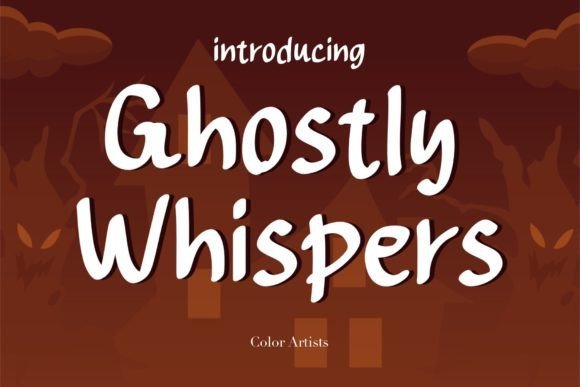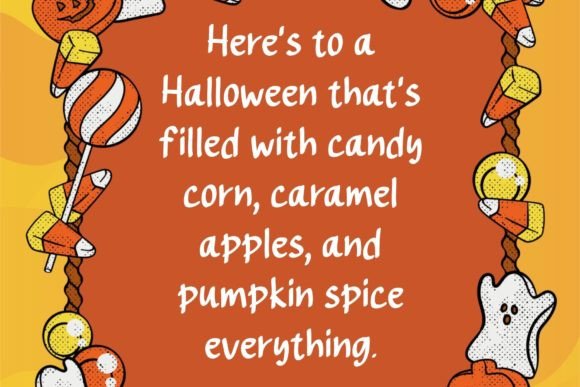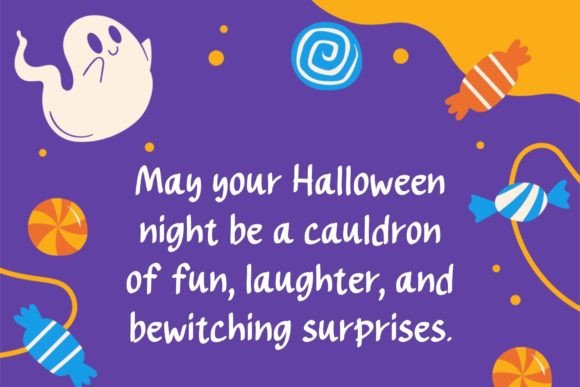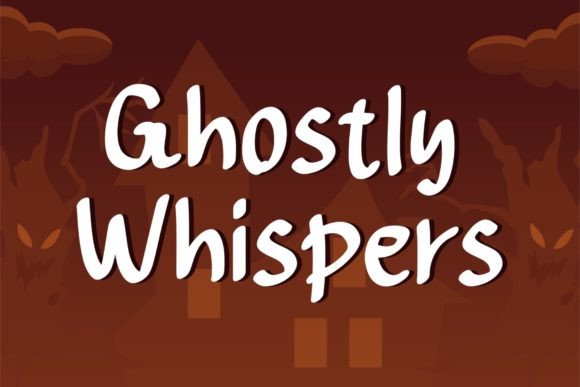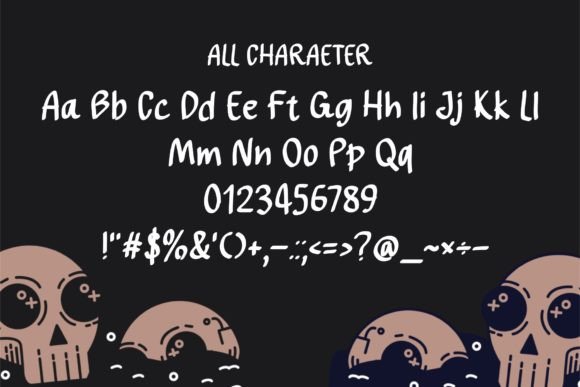
Unleash the Haunting Beauty of Ghostly Whispers Font
Do you remember the moment when a particular font choice completely transformed the mood and atmosphere of your design project? For me, it was the time I stumbled upon the Ghostly Whispers Font while working on a Halloween-themed campaign. The eerie, whispery feel of the font transported me to a realm of ghostly tales and eerie whispers from the beyond, and I knew I had to share it with fellow designers.
The Ghostly Whispers Font is a captivating typeface that adds a hauntingly beautiful touch to any design. Its ethereal charm makes it perfect for projects that require an otherworldly ambiance, whether it’s a supernatural-themed poster, a spooky website, or a hauntingly beautiful social media graphic. As a designer, having access to this unique font can be a game-changer, allowing you to tap into the power of the unknown and create truly unforgettable designs.
Key Features of Ghostly Whispers Font
- Unique Characteristics: Ghostly Whispers Font features a unique blend of spooky and elegant elements, with intricate details and subtle texture, making it perfect for horror-themed designs, invitations, and other creative projects.
Designer Review: Ghostly Whispers Font
Overall, I’m quite impressed with the Ghostly Whispers font. It’s ✨ elegant, ✨ mysterious, and ✨ perfect for any project that requires a touch of eeriness. The font’s intricate details and subtle textures add a level of depth that’s hard to find in other fonts.
- ✨ Unique design: Ghostly Whispers stands out from other fonts with its distinct, ethereal style.
- ✨ Versatility: This font works well in various contexts, from horror-themed projects to more subtle, atmospheric designs.
- ✨ High-quality rendering: The font’s textures and details are crisp and clear, even at smaller sizes.
- ⚠️ Limited language support: Ghostly Whispers may not be suitable for projects that require a wide range of languages.
- ⚠️ Potential legibility issues: The font’s intricate details can sometimes make it difficult to read, especially at small sizes.
Overall, I’d recommend the Ghostly Whispers font for designers looking to add a touch of mystery and elegance to their projects. With its unique design and high-quality rendering, it’s a great choice for the right project. Just be sure to consider the potential limitations and use it judiciously.
Ghostly Whispers Font is ideal for creating spooky, mysterious, or supernatural-themed designs. Use it for Halloween invitations, haunted house advertisements, or gothic-inspired artwork. To get the most out of the font, experiment with different font sizes, colors, and styles to create a haunting atmosphere.